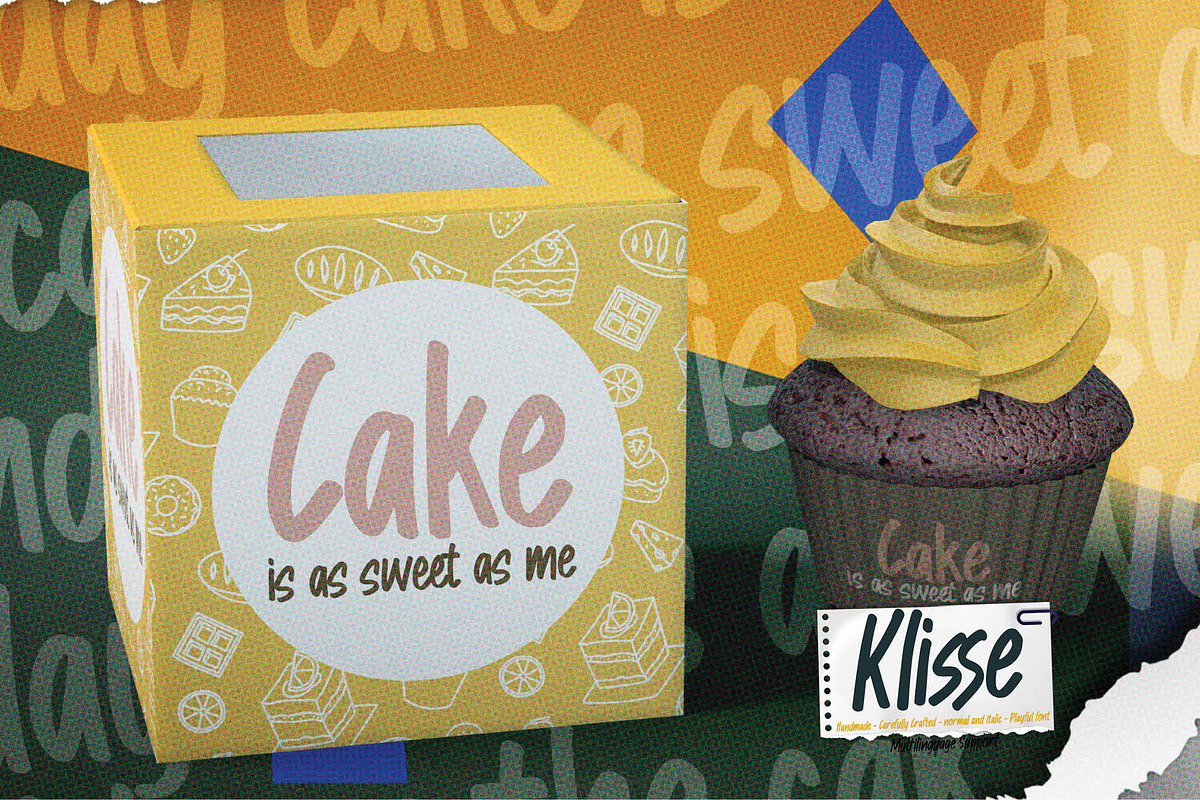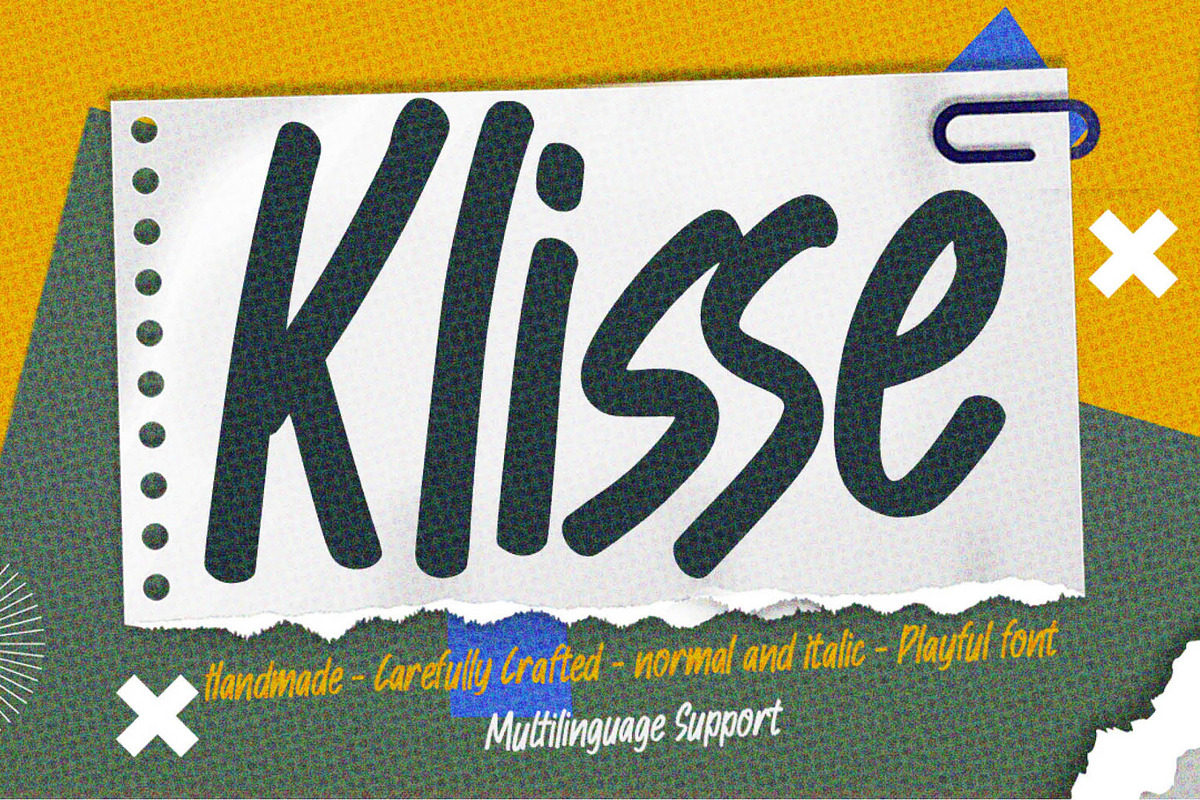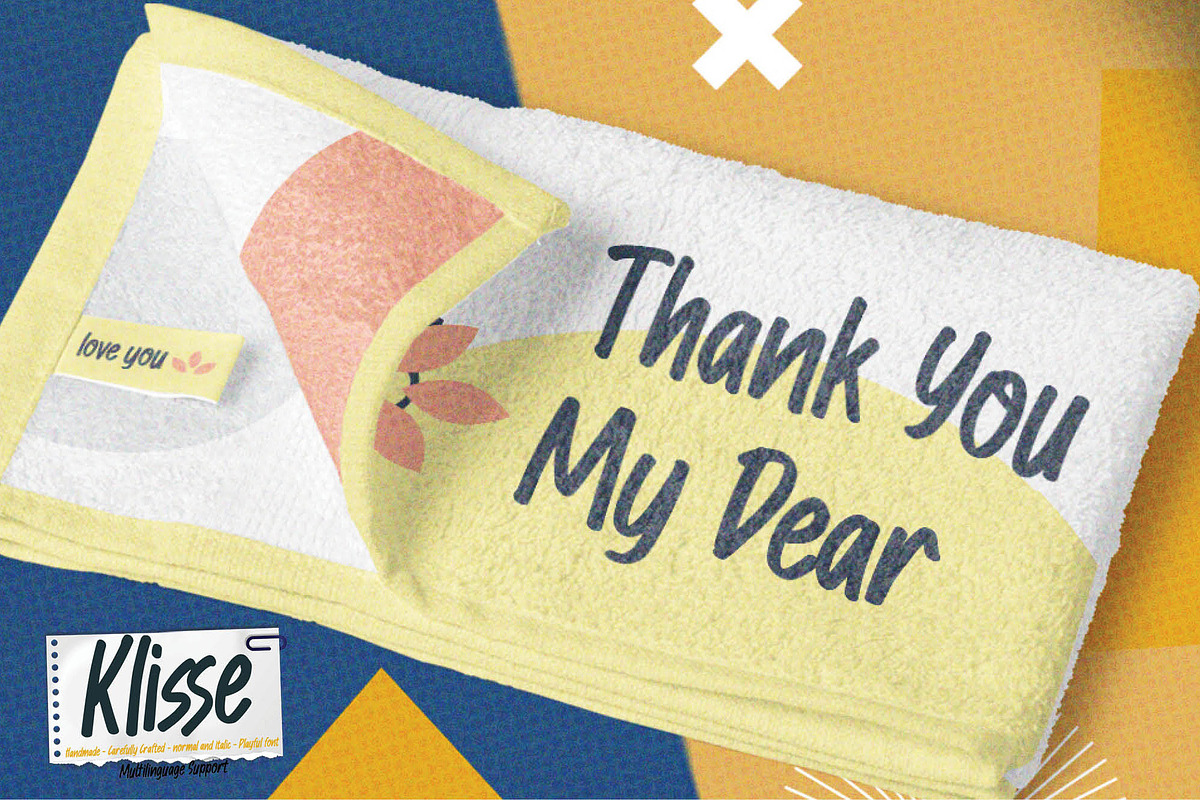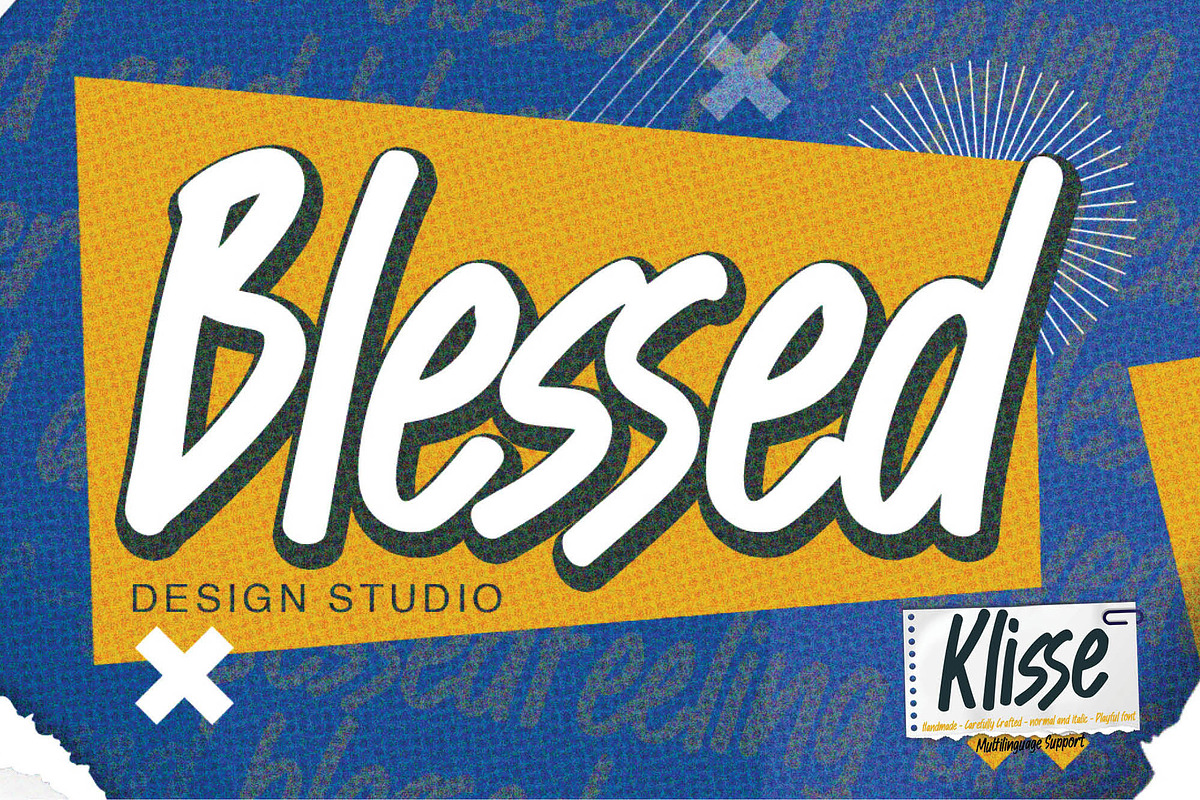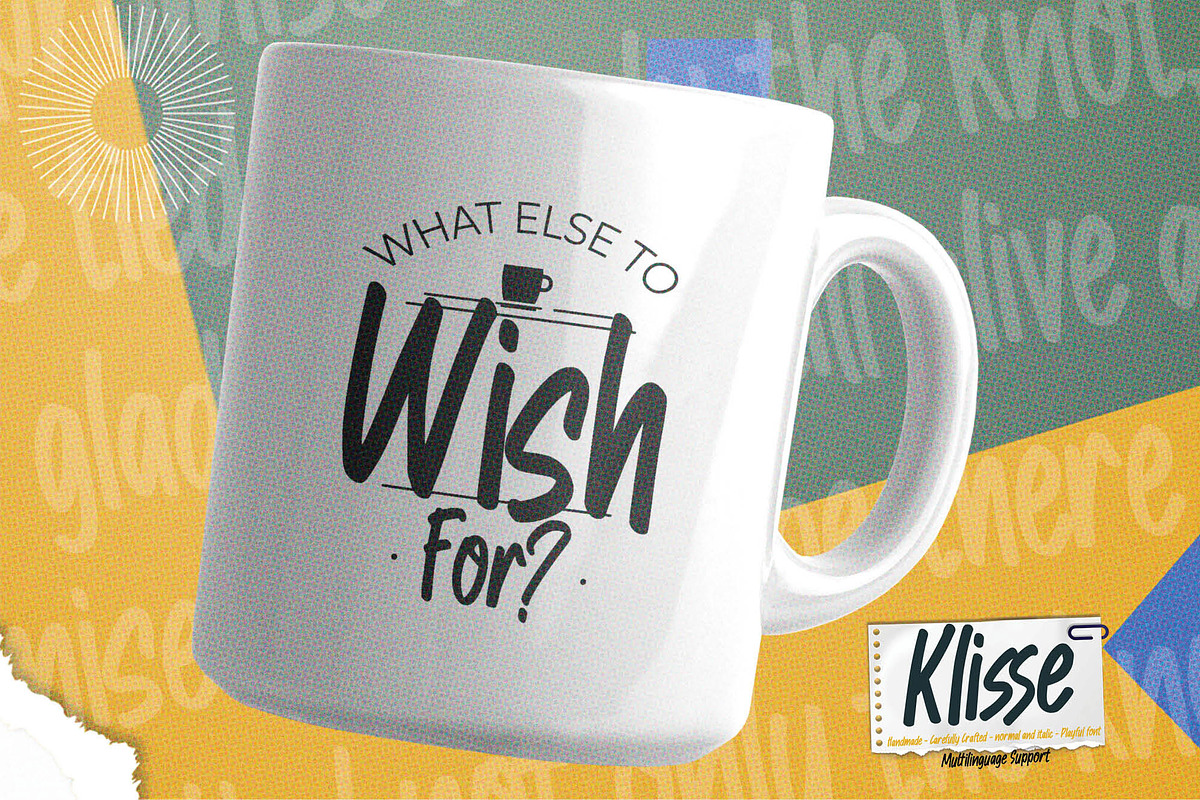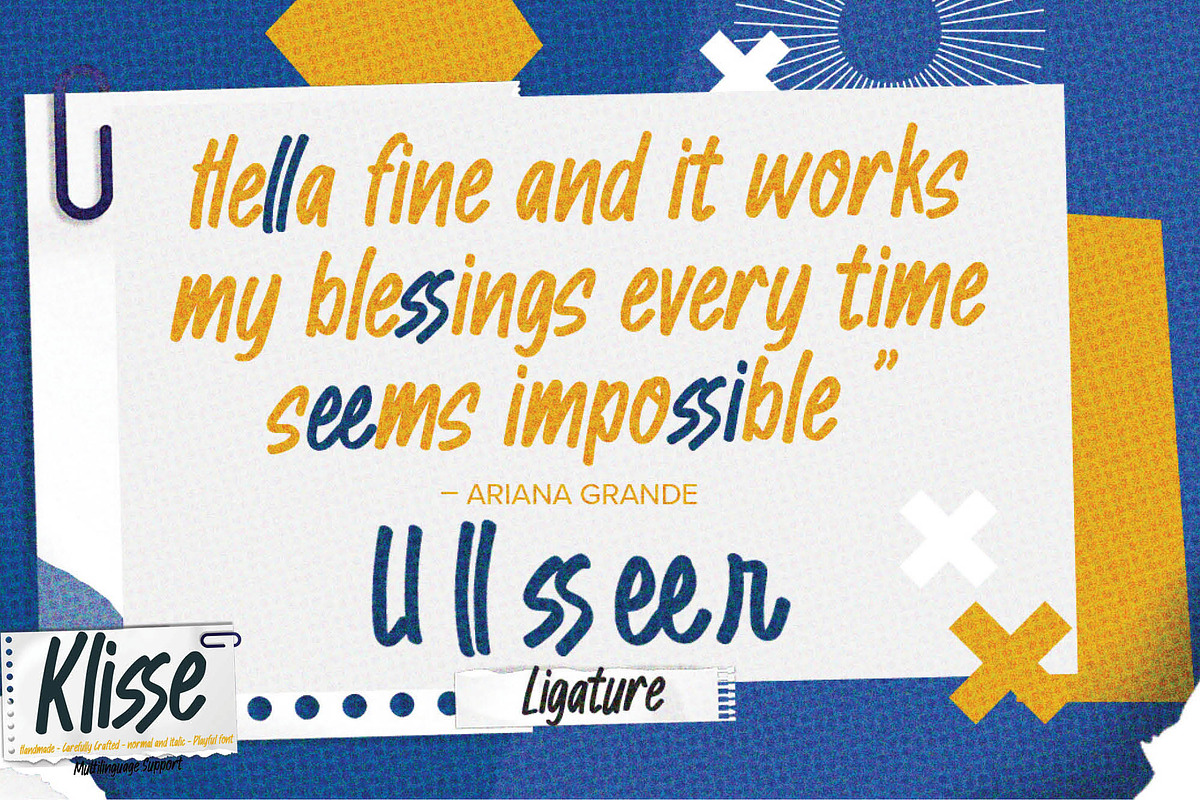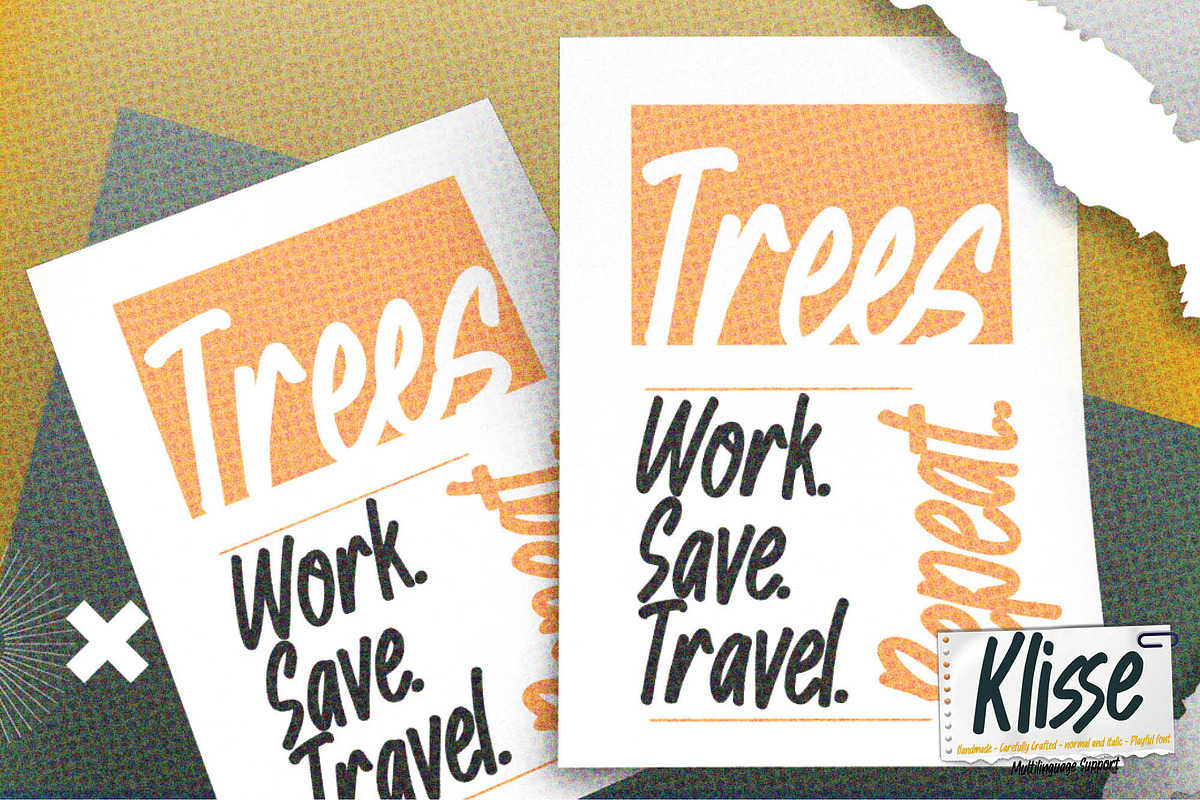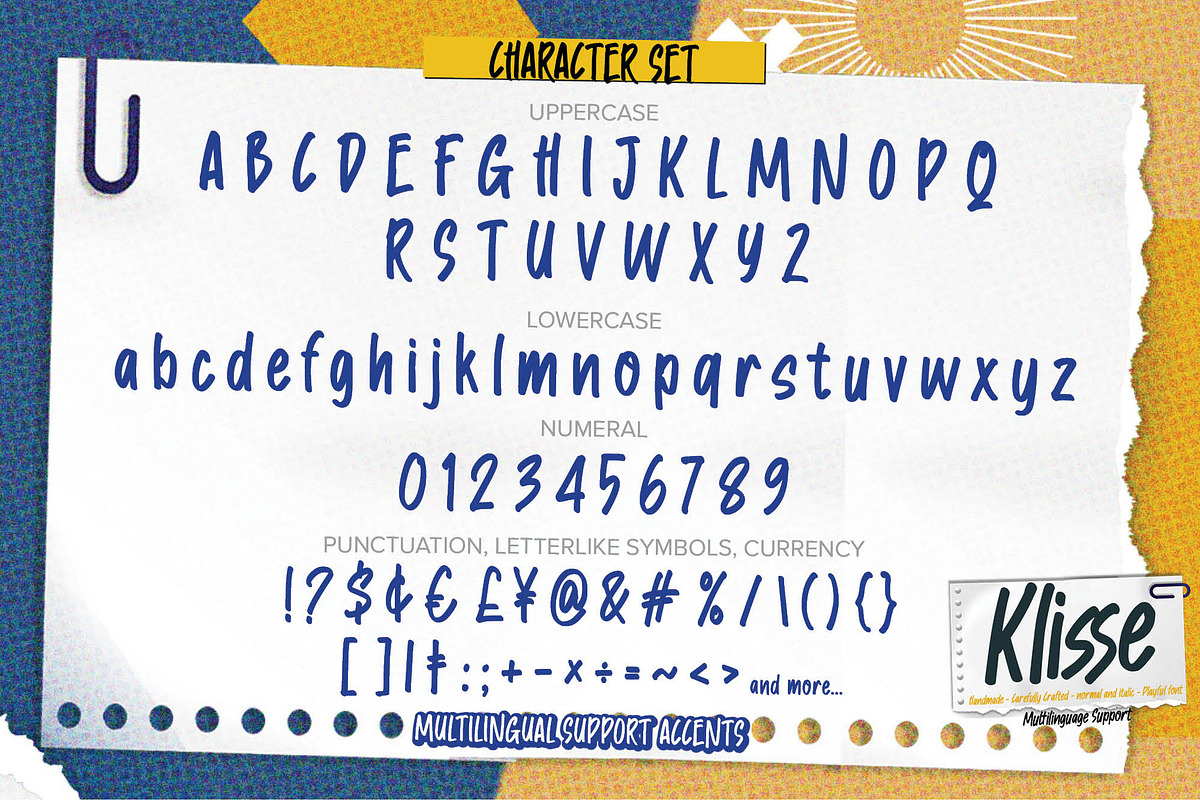
Klisse - Handmade Carefully Playful
Klisse is Handmade Carefully Playful Font Display Font that will make your designs look modern, unique and fun. It’s perfect for labels, quotes, posters, DIY projects, branding, packaging, greeting cards, websites, photography overlays, signs, window art, scrapbooking, tags and so much more!